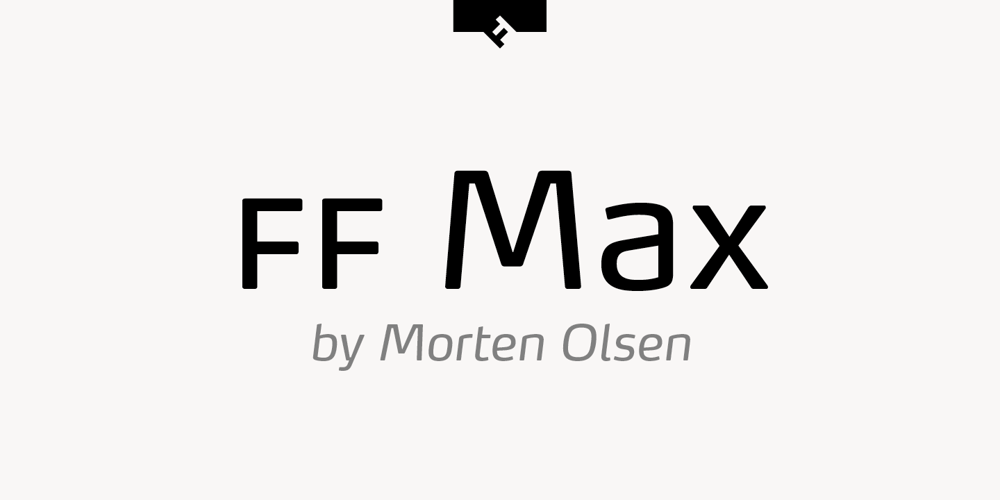
FF Max
FF Max font
FF Max Font Family was designed by Morten Rostgaard Olsen and published by FontFont. FF Max contains 36 styles and family package options. Danish type designer Morten Olsen created this sans FontFont between 2003 and 2004. The family has 18 weights, ranging from Extra Light to Fat (including italics) and is ideally suited for advertising and packaging, editorial and publishing, logo, branding and creative industries, software and gaming as well as sports. FF Max provides advanced typographical support with features such as ligatures, small capitals, alternate characters, case-sensitive forms, fractions, and super- and subscript characters. It comes with a complete range of figure set options – oldstyle and lining figures, each in tabular and proportional widths. This FontFont is a member of the FF Max super family, which also includes FF Max Demi Serif.